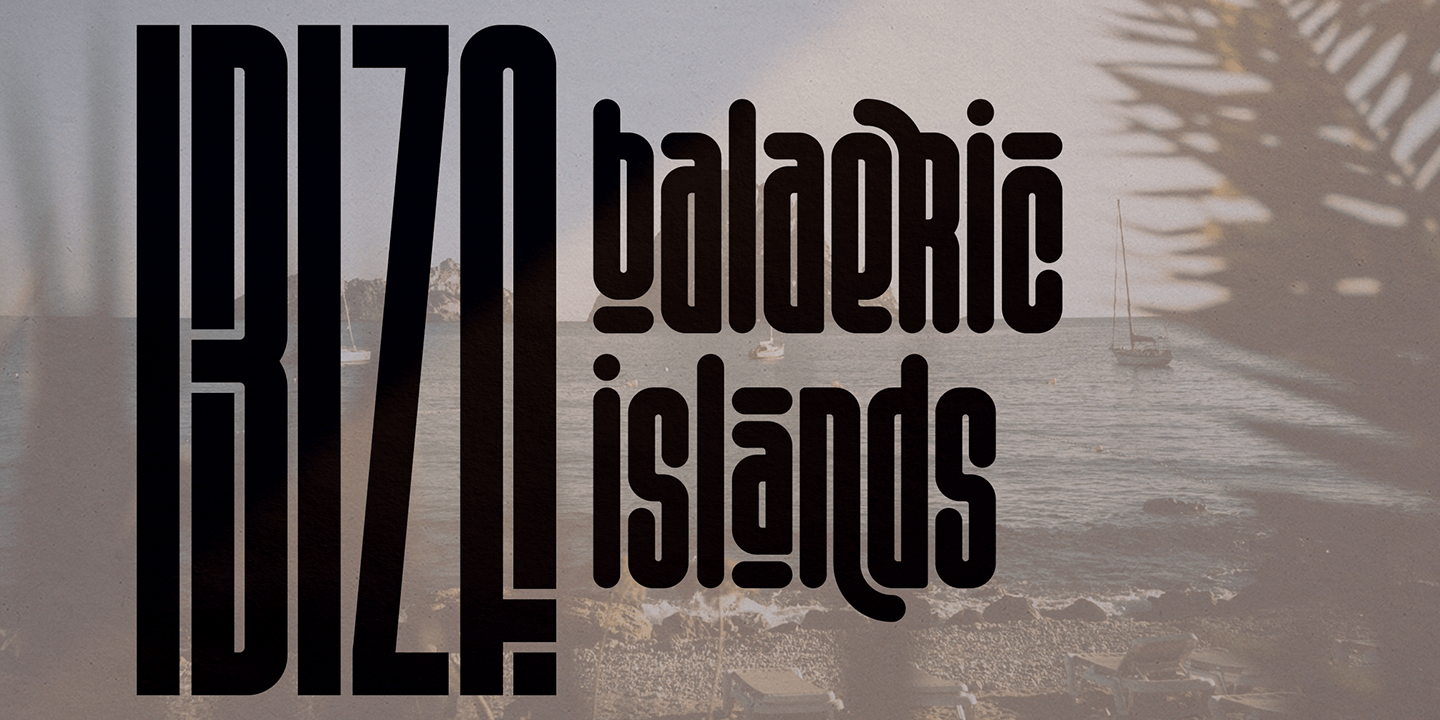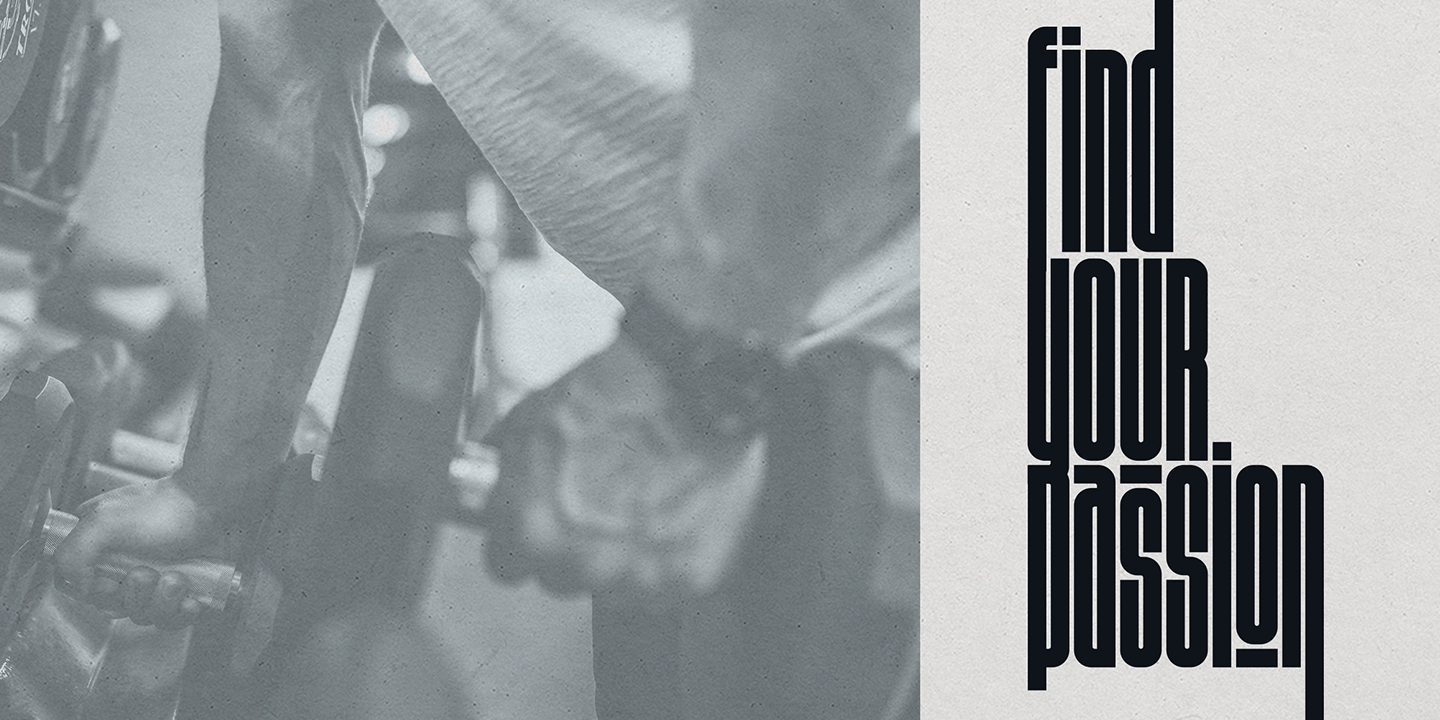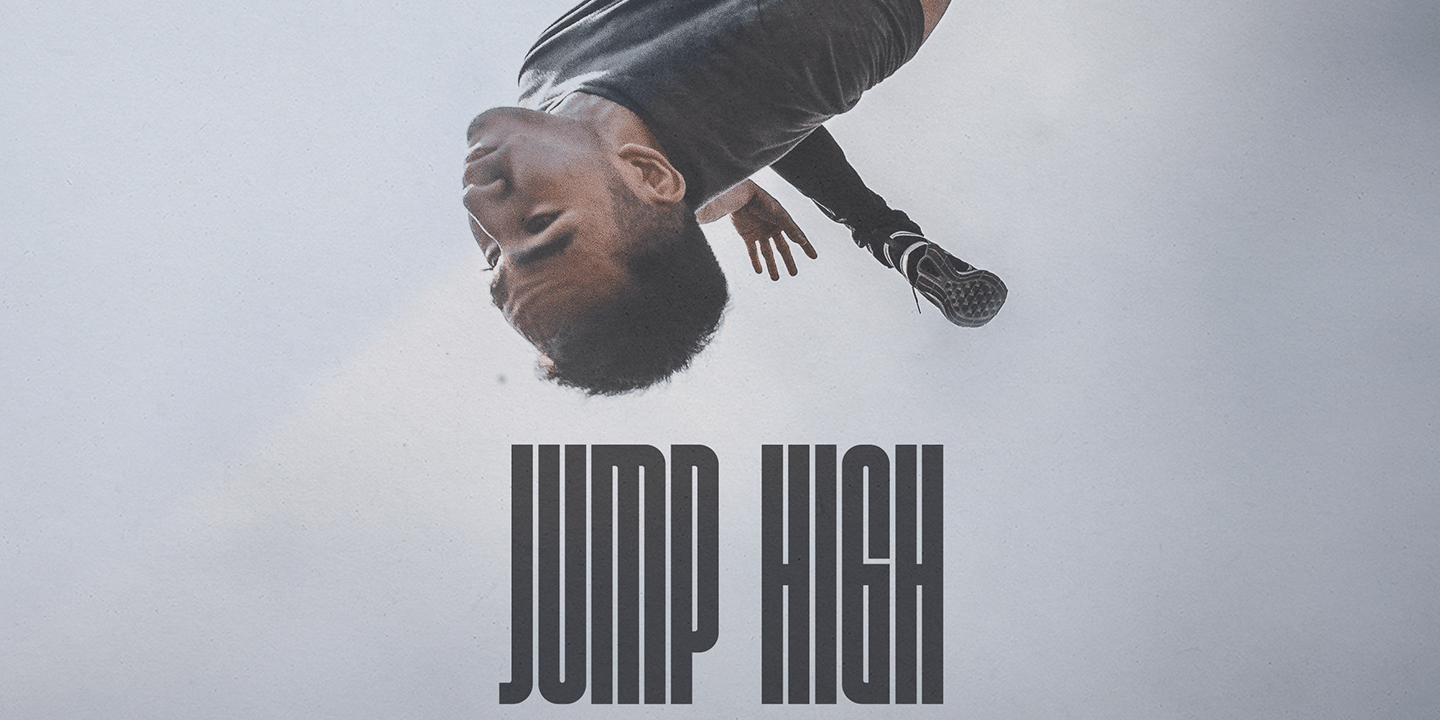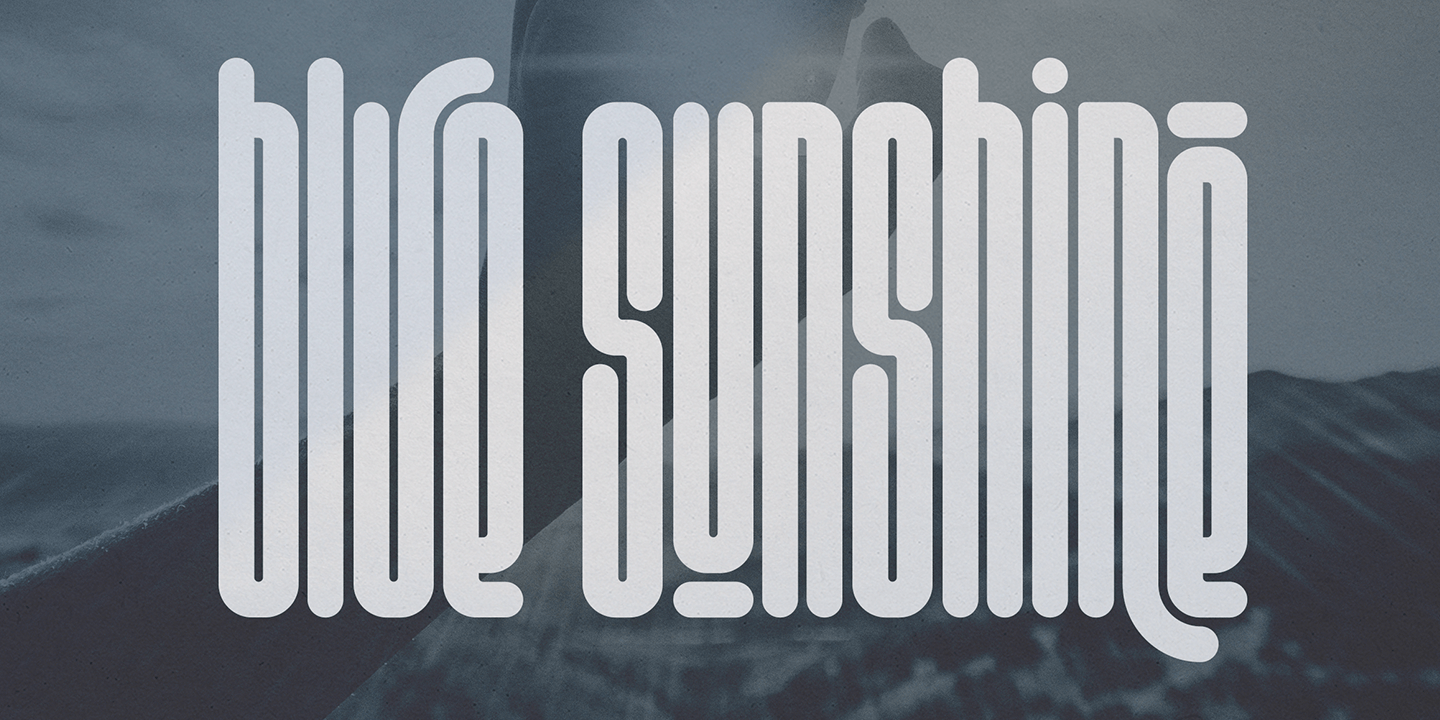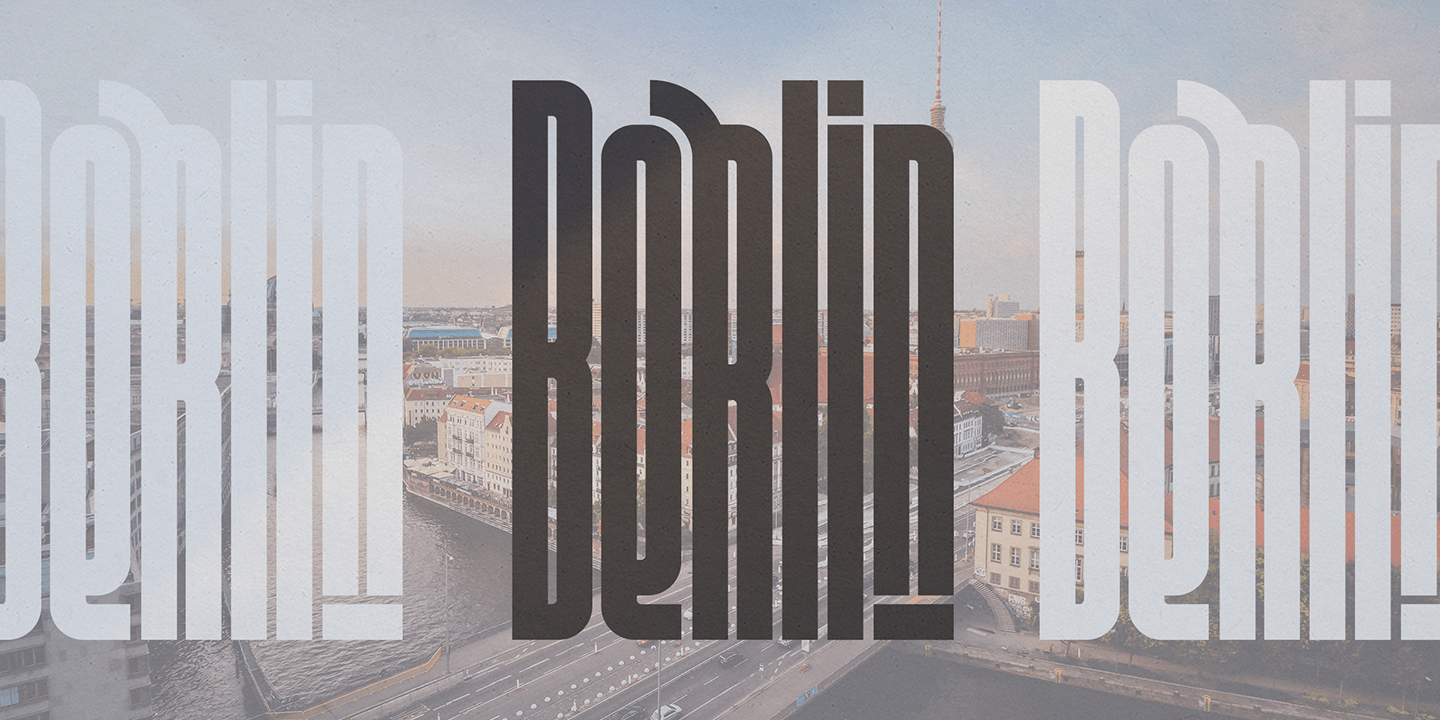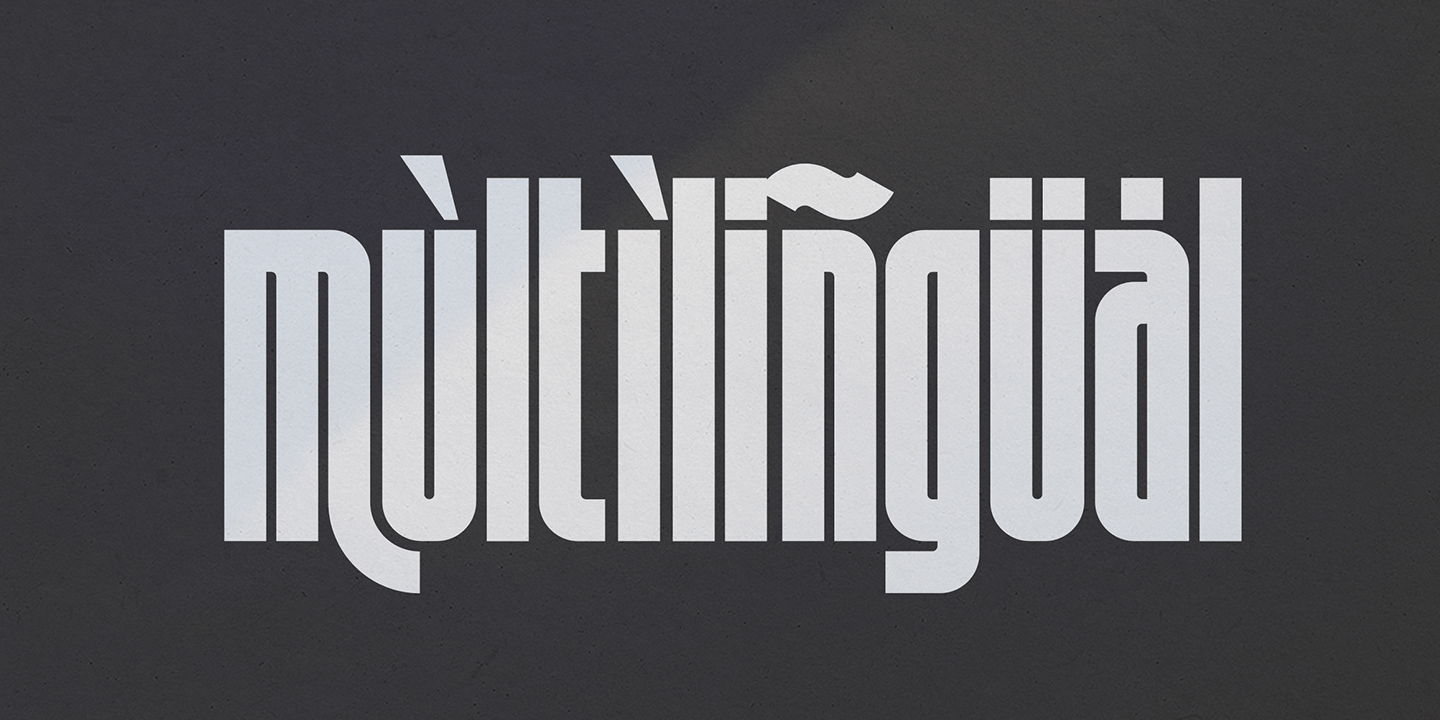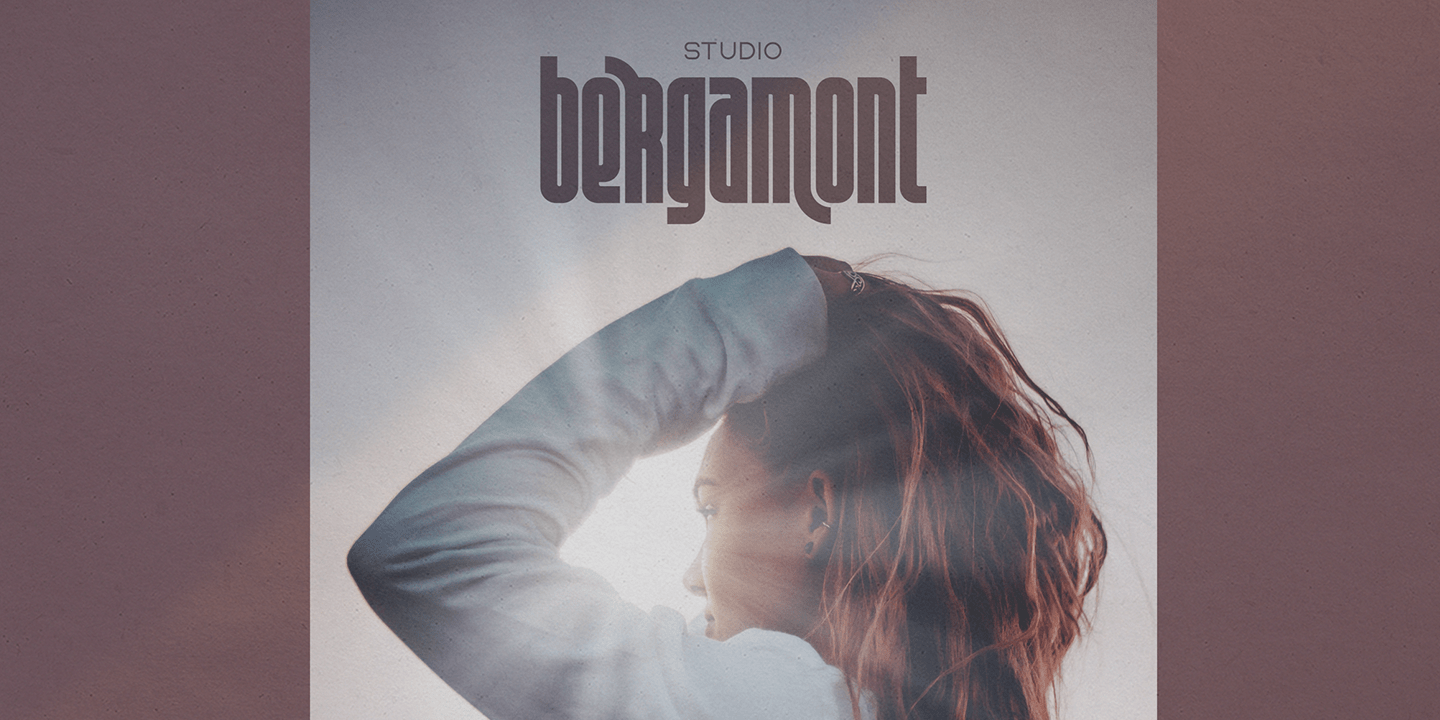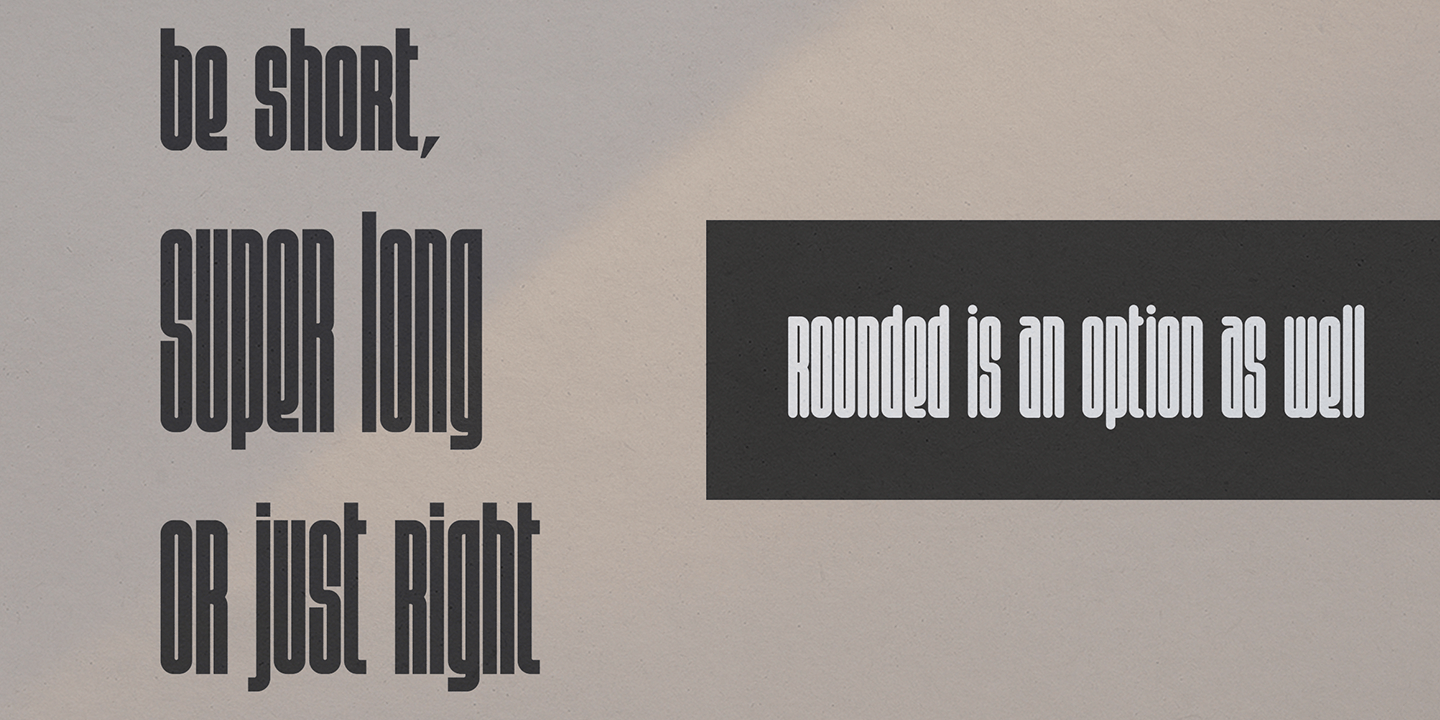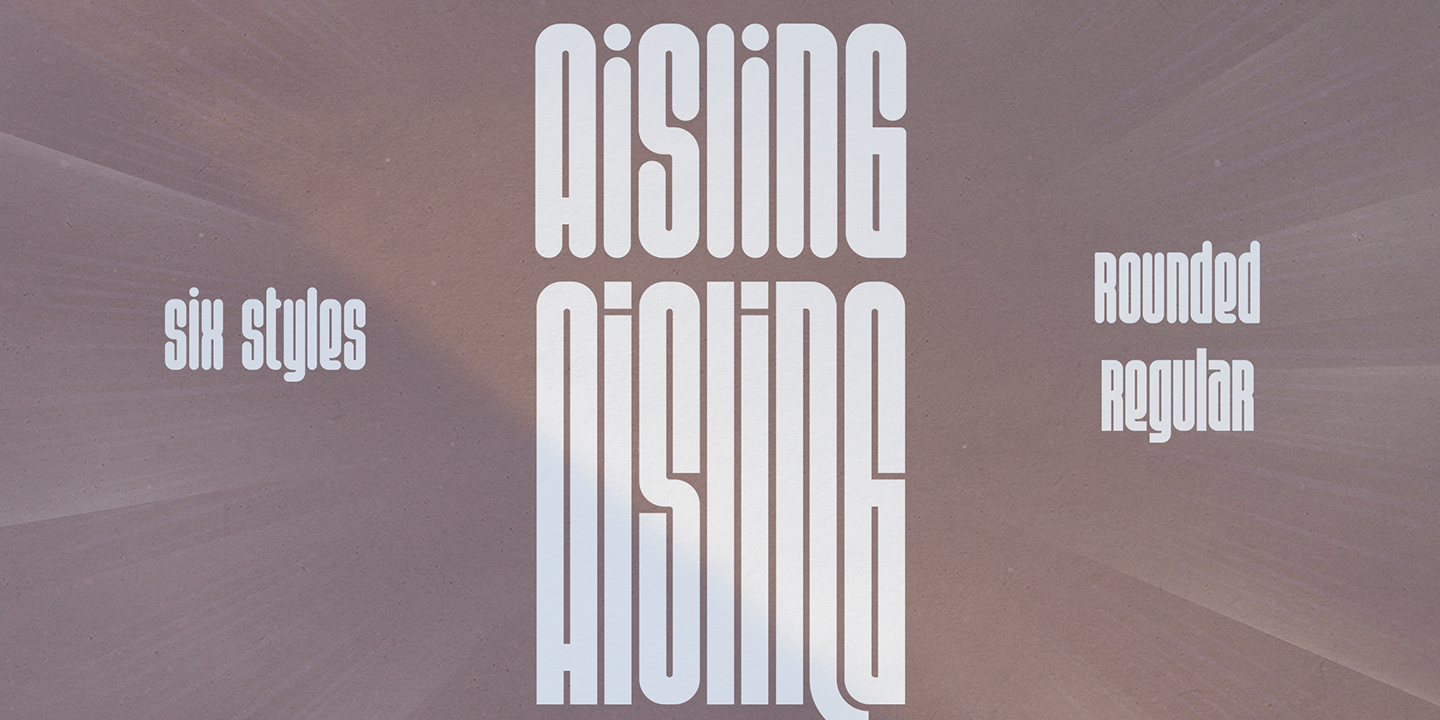
Aisling
Introducing Aisling – Creative Display Typeface loaded with 6 fonts Aisling is long, futuristic typeface with 6 fonts loaded with ligature glyphs, alternates and multilingual support to enchant your next project. Very versatile fonts that works…